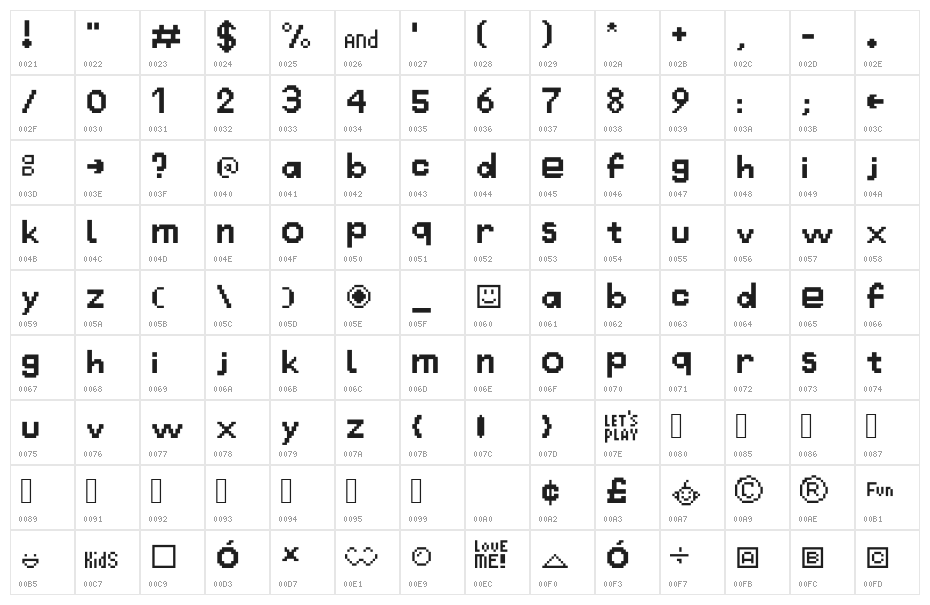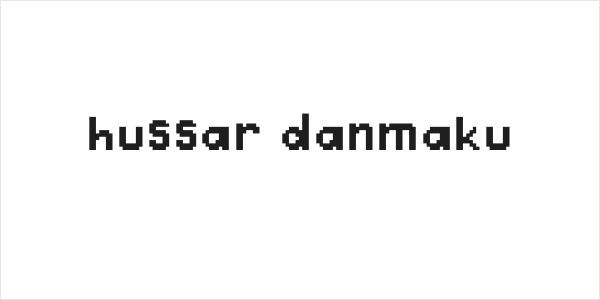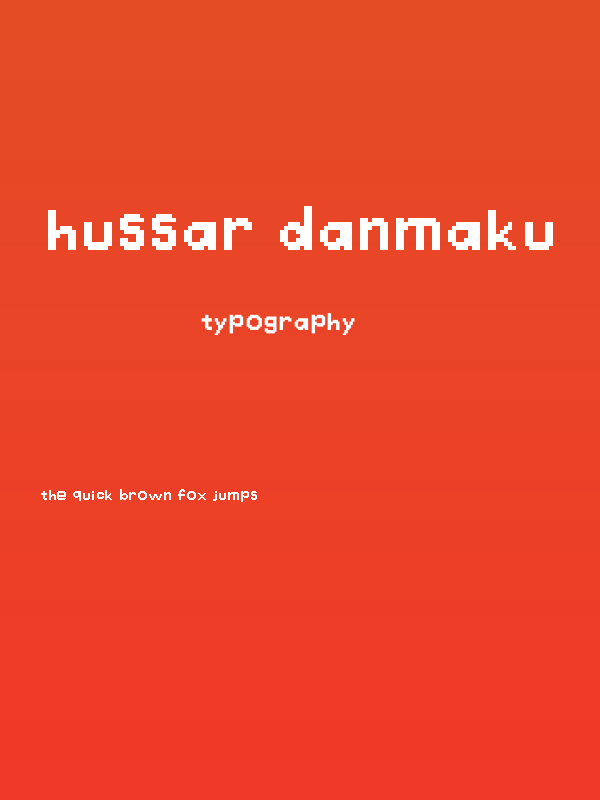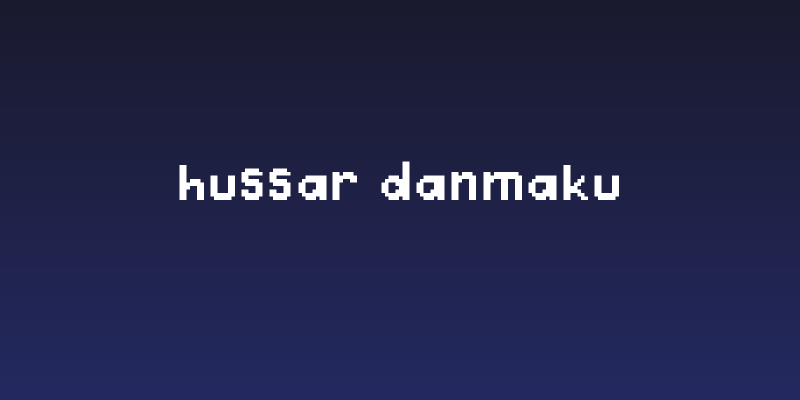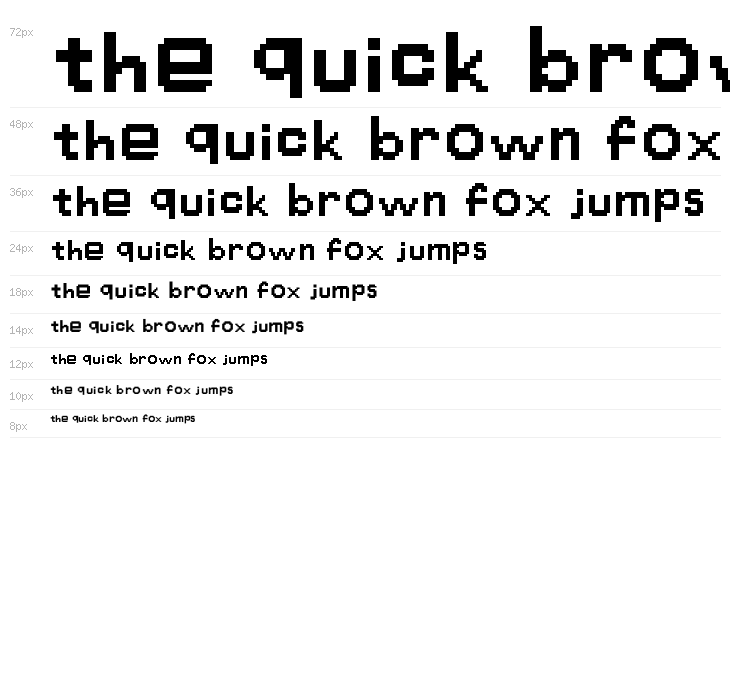
Hussar Danmaku Font
Hussar Danmaku Description
This font features a pixelated, blocky design reminiscent of early digital and arcade game typography. Each character is constructed with a uniform grid-like structure, giving it a distinctly retro and digital appearance. The uppercase and lowercase letters maintain a consistent height, contributing to a cohesive and uniform look. The numerals and special characters follow the same pixelated style, ensuring a seamless integration across all text elements. This font's geometric and monospaced nature makes it ideal for projects that aim to evoke nostalgia or a tech-inspired aesthetic. Its simplicity and clarity ensure readability even at smaller sizes, while the bold, pixelated strokes provide a strong visual impact.
Overall StyleRetro, Digital
Use CaseHeadlines, Logos, Digital displays
Proposed ProjectsIdeal for video game design, retro-themed posters, digital art projects, and tech-inspired branding.